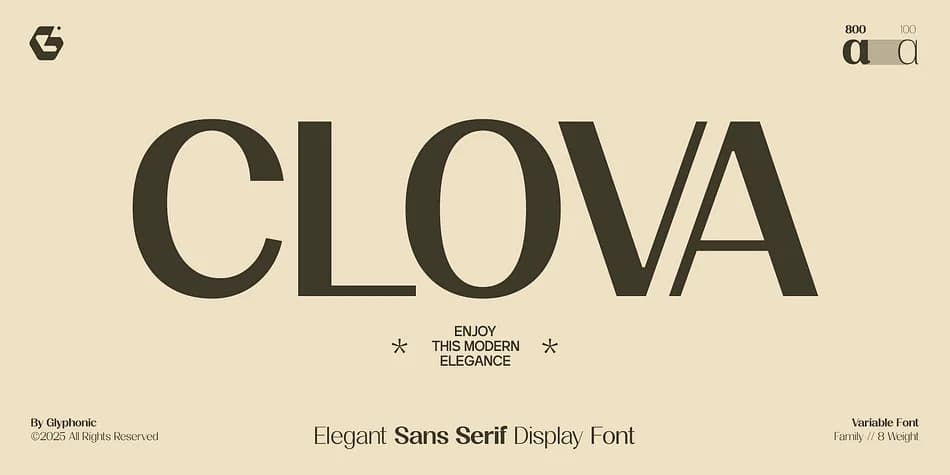
Imagine browsing a high-end fashion lookbook or opening a luxury skincare brand's website, and you notice the typography standing out immediately. That's GC Clova, a display typeface designed by Glyphonic. Its clean geometry and subtle stroke contrast create a confident presence that feels contemporary without ever tipping into coldness.
This display typeface works beautifully for editorial spreads in design-forward magazines, upscale packaging labels for boutique cosmetics, brand identities for luxury retailers, and wedding invitation suites where every detail matters. The letterforms are precise and distinctive, built with careful proportions that serve it well at any size you choose. Scale it up for 72-point headlines or hold it tight for logos, and it delivers with equal confidence. It includes full uppercase and lowercase characters, numbers, punctuation, and multilingual support covering 170+ languages, so it adapts well across different markets and design contexts.
What makes it genuinely so useful is how it maintains clarity and elegance across all scales. Set it tight for crisp logos and minimal layouts, or give it breathing room for editorial spreads, and it delivers the refined results you're after. Pick up GC Clova on Creative Fabrica and you'll have a typeface that handles everything from luxury packaging to high-end editorial work.
- Eye-catching, Bold
GC Clova Font is a display font that shines as a display or heading face. Pair it with a clean sans-serif or serif font for body text โ the contrast creates a clear hierarchy while the two styles stay balanced and easy to read.